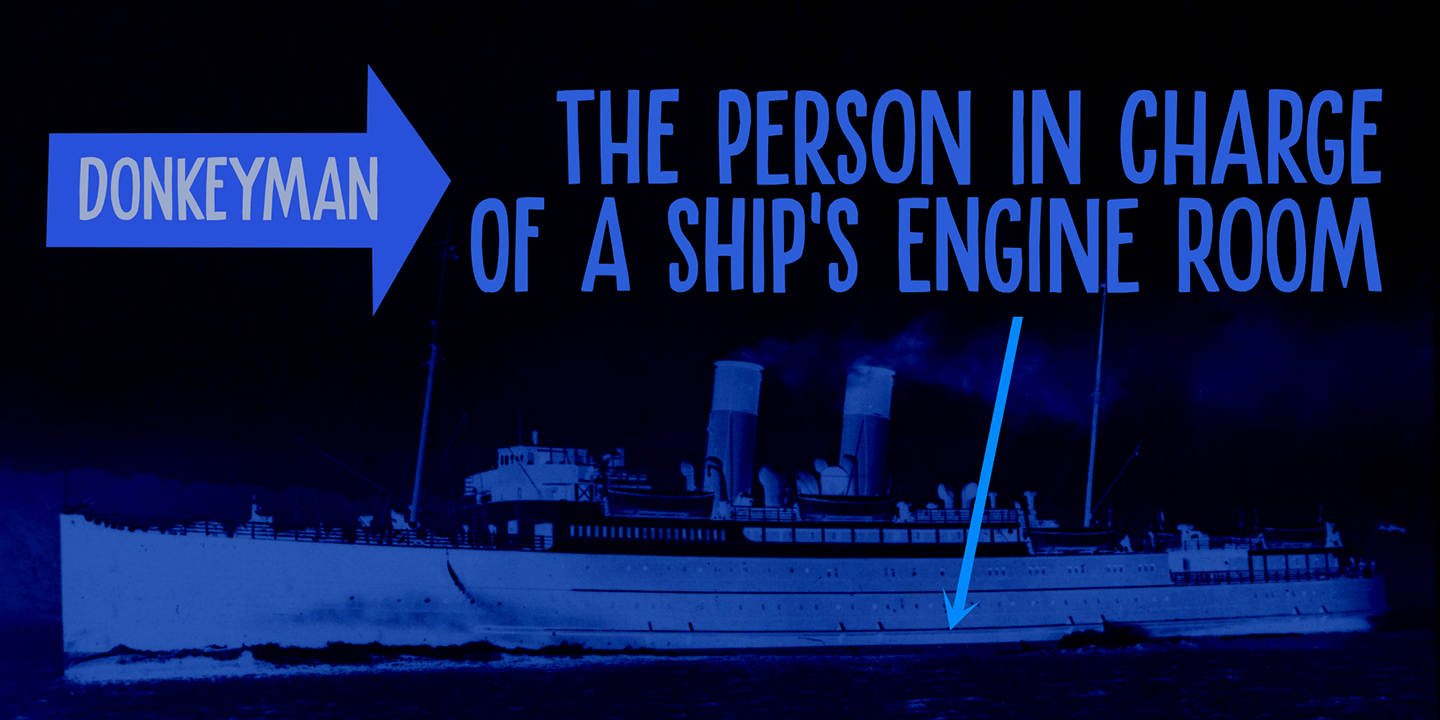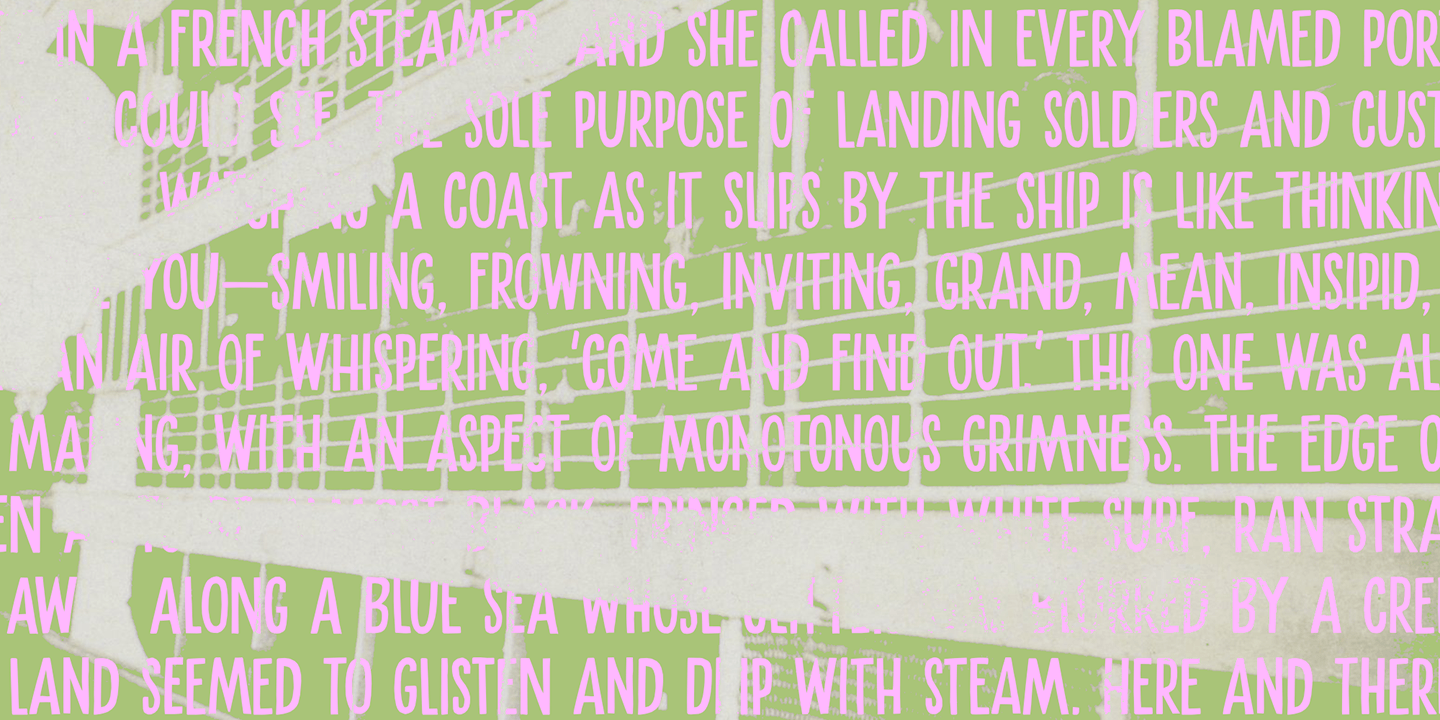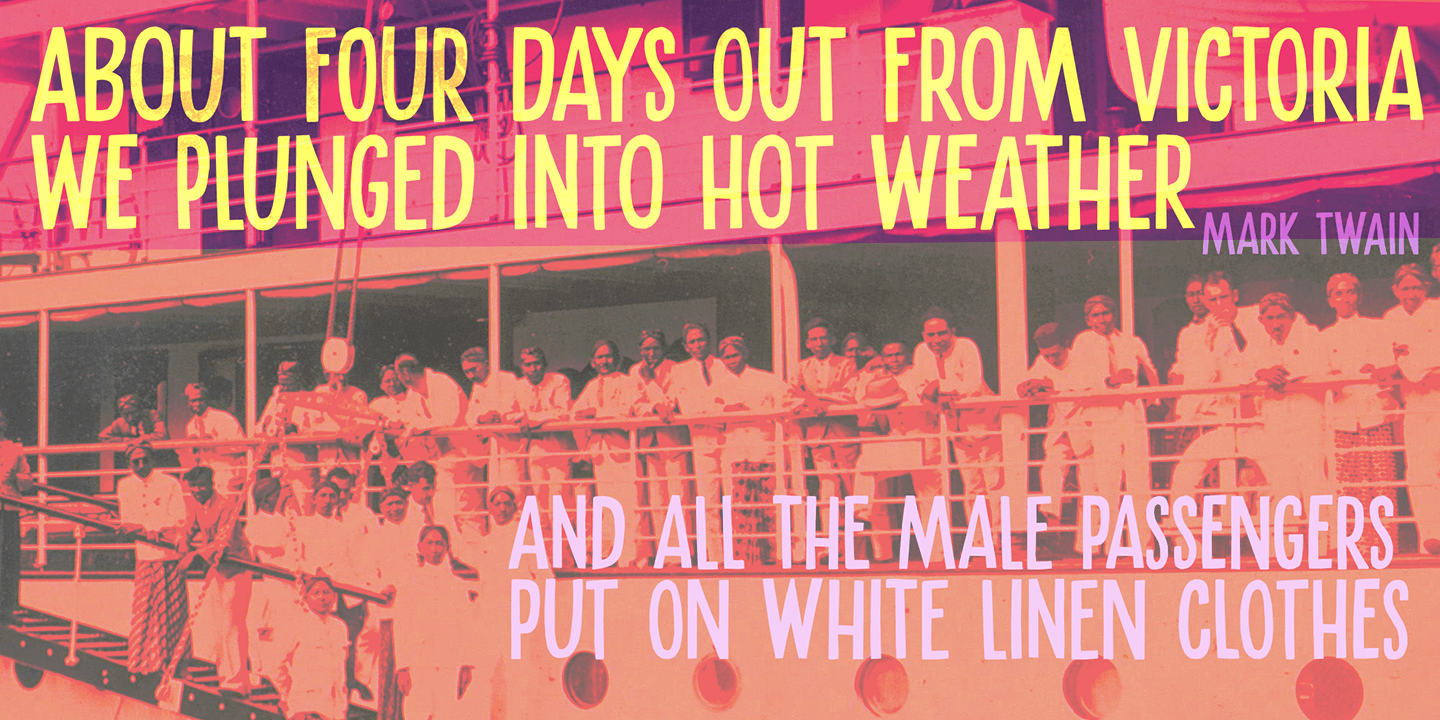
About Donkeyman
A Donkeyman is a person who is in charge of a ship\’s engine room. I didn\’t know this, but when I was looking for a nice name for this font, I sort of stumbled upon it. Donkeyman font is quite a useful font: it is a handmade, all-caps font that comes…